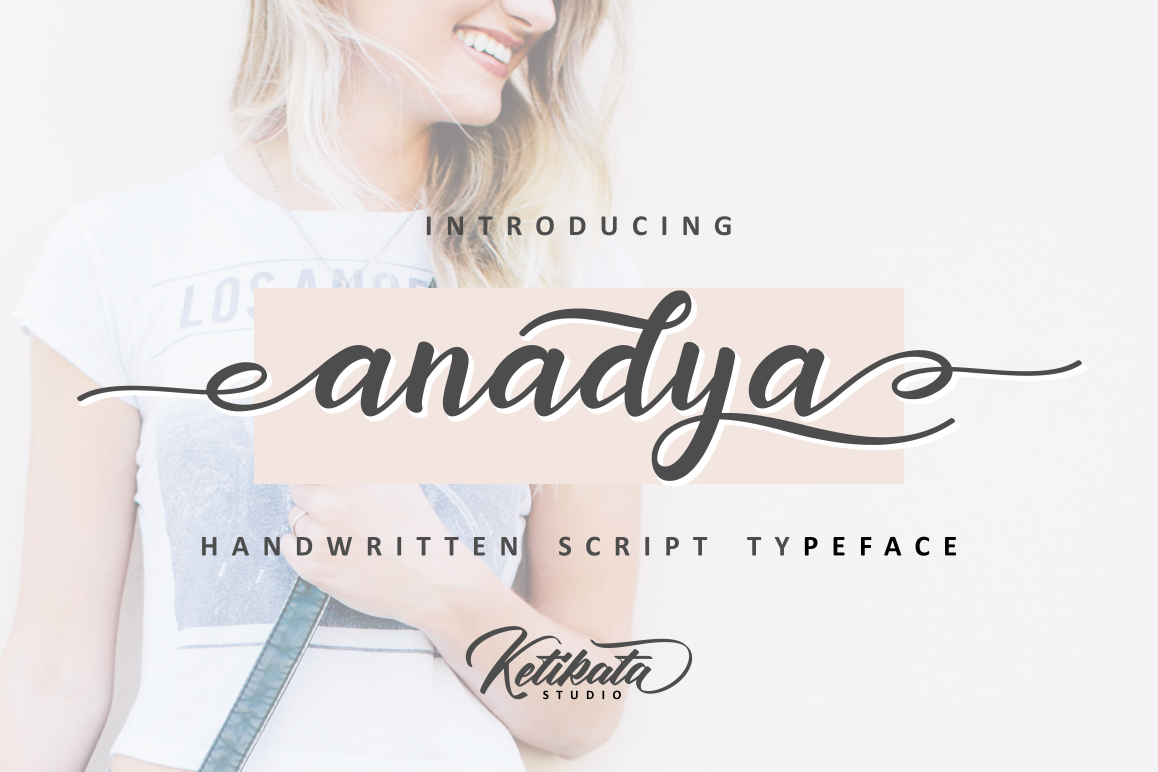
Anadya Handwritten Script
Introducing anadya!
anadya is a Modern Handwritting script font. carefuly crafted with Brush lettering. that contains many stylistic alternate and swashes that will help you to creat your own customized design.
this font has unique and perfect for Sweet design and other design needs, like for qoutes, merchandise, packaging, business card and many other project.
This font was impressed sweet, feminine and elegant.
• Ligature & alternates
• Standard Uppercase and Lowercase Alphabet
• Numbers and Punctuations
• Stylistic Set
• Multilingual support AÀÁÂÃÄÅCÇDEÈÉÊËIÌÍÎÏNÑOØÒÓÔÕÖUÙÜÚÛYÝŸŸ